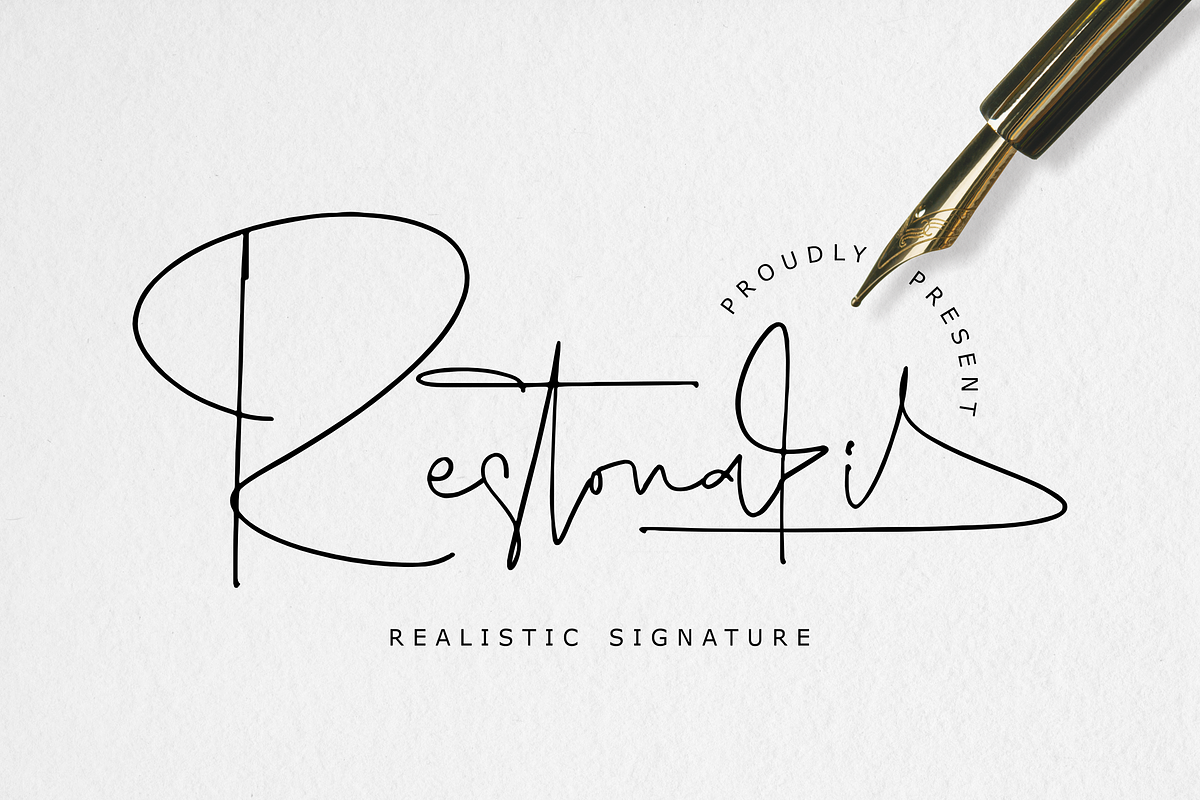
Restonasi Realistic Signature Font Free Download is an elegant and authentic handwritten script that captures the natural flow and personal touch of a real signature. With smooth, fluid strokes and graceful letterforms, this font is perfect for personal branding, logos, invitations, signatures, and upscale social media content.
Its realistic, handwritten style gives your designs a warm, professional, and sophisticated feel. Whether you're creating a signature logo, stylish branding, or a personal letter, Restonasi Realistic Signature Font Free Download brings an organic, human touch to your typography.
Add a personal and elegant flair to your designs with Restonasi Realistic Signature Font Free Download, and make your typography feel truly bespoke. A must-have for creatives looking for a refined, signature-style font with natural elegance.